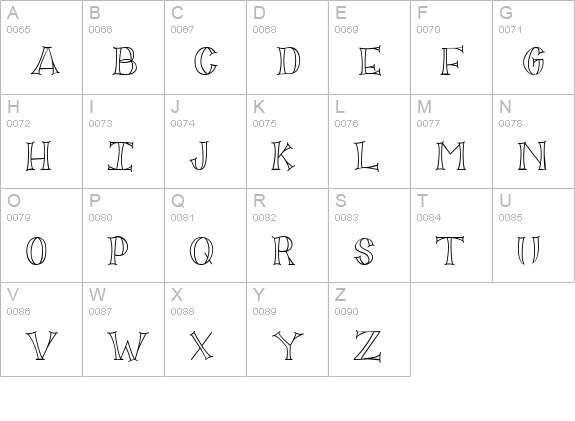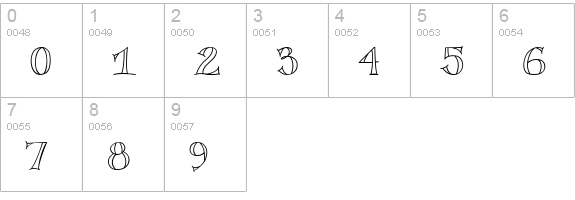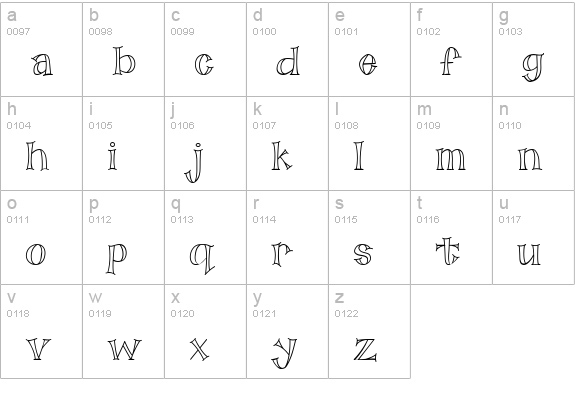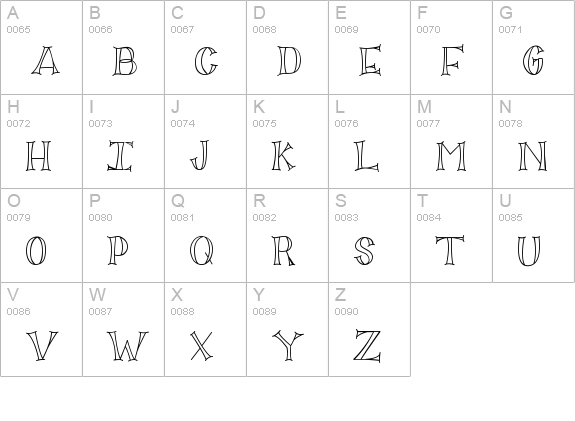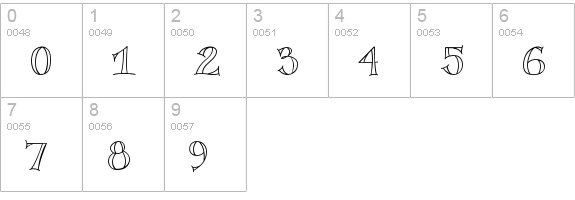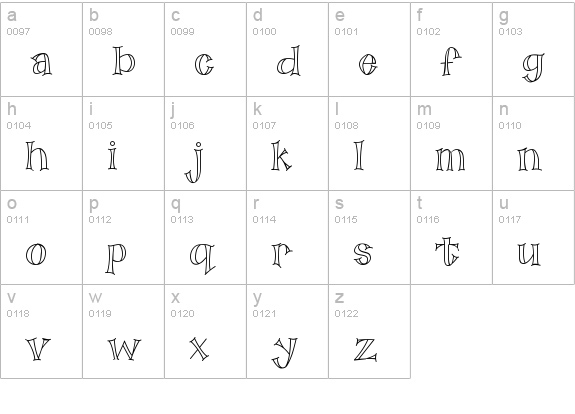
CK Classic Font Details
The CK Classic font is a timeless and elegant typeface that exudes sophistication and charm. With its clean lines and classic aesthetic, this font is perfect for adding a touch of refinement to any design project. Whether you're creating invitations, logos, or branding materials, CK Classic will elevate your work to a new level of elegance. What's even better is that CK Classic is available for free download at FontsMarket.com. So you can easily access this beautiful font and use it in your projects without any hassle. Don't miss out on the opportunity to enhance your designs with the timeless appeal of CK Classic - download it for free today!